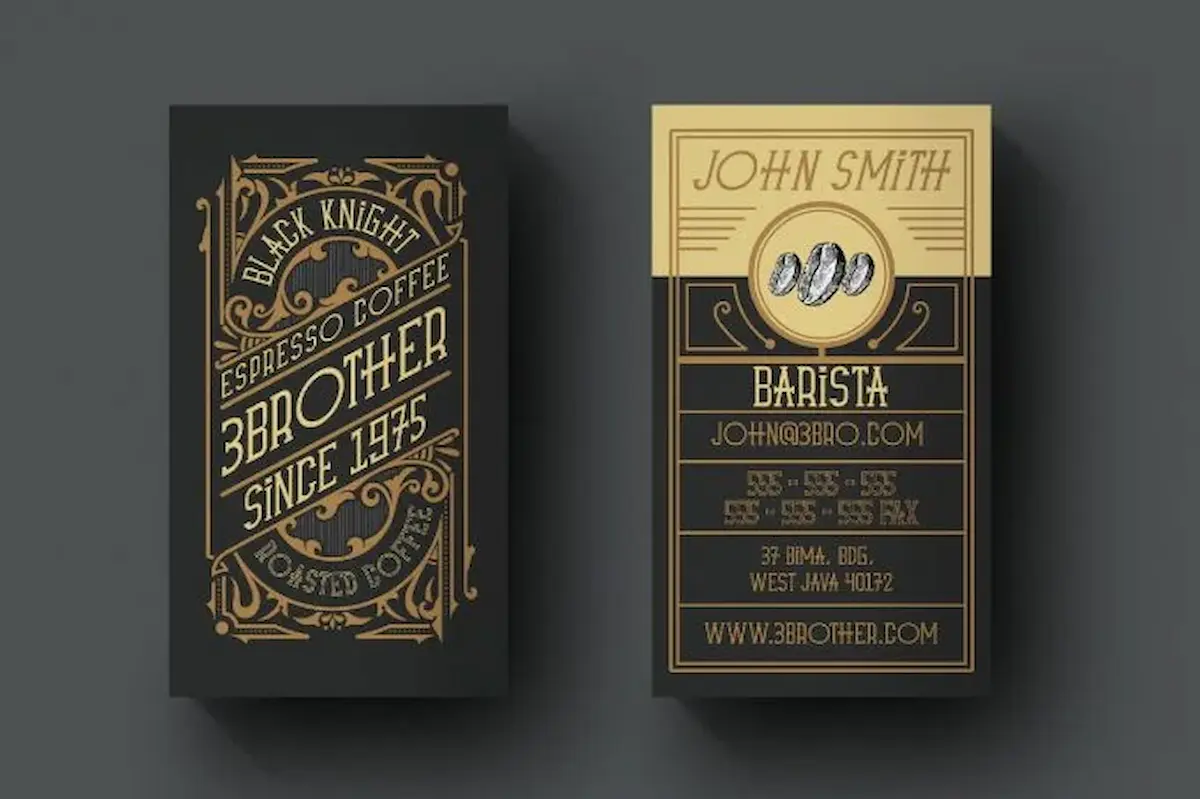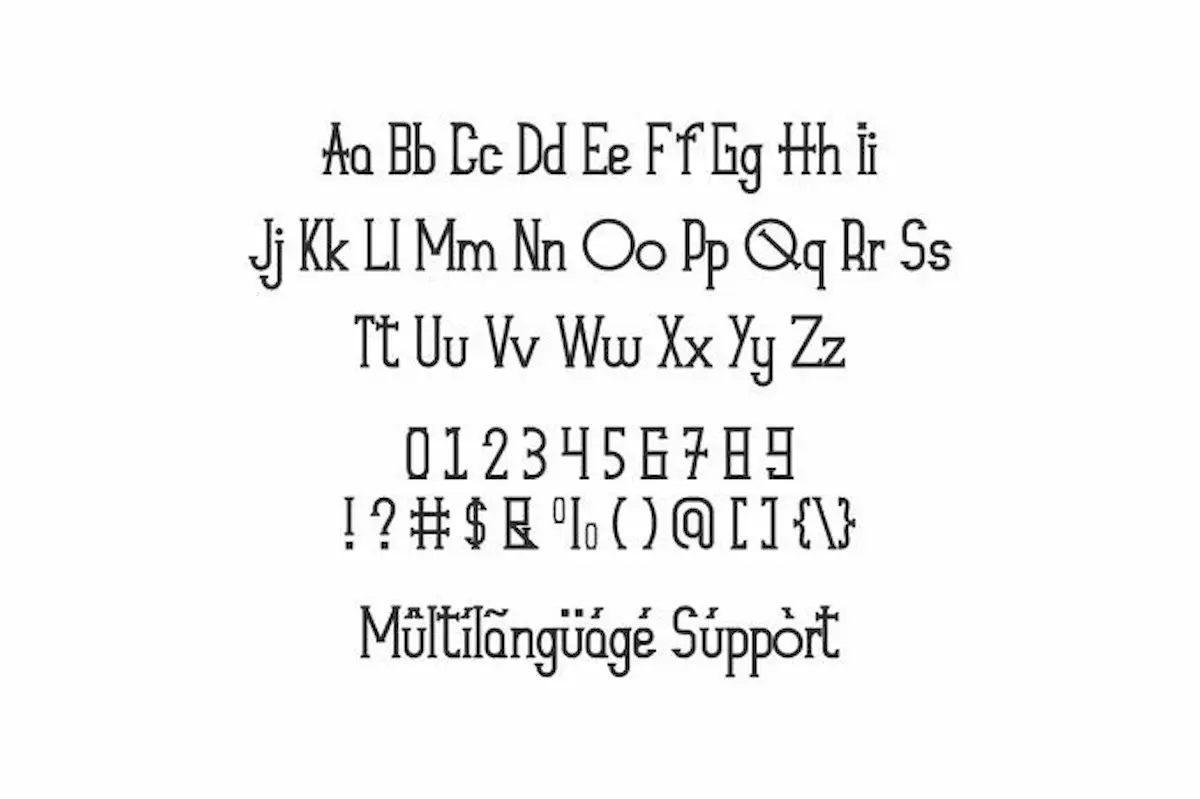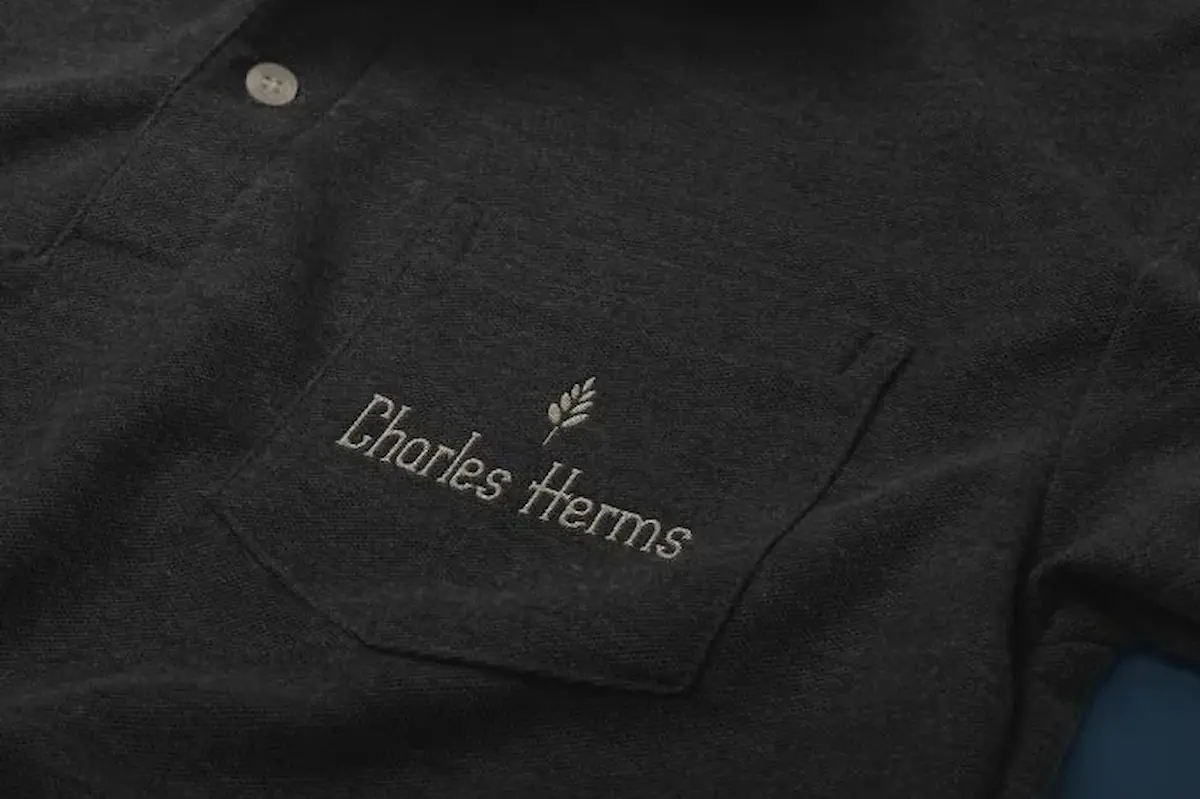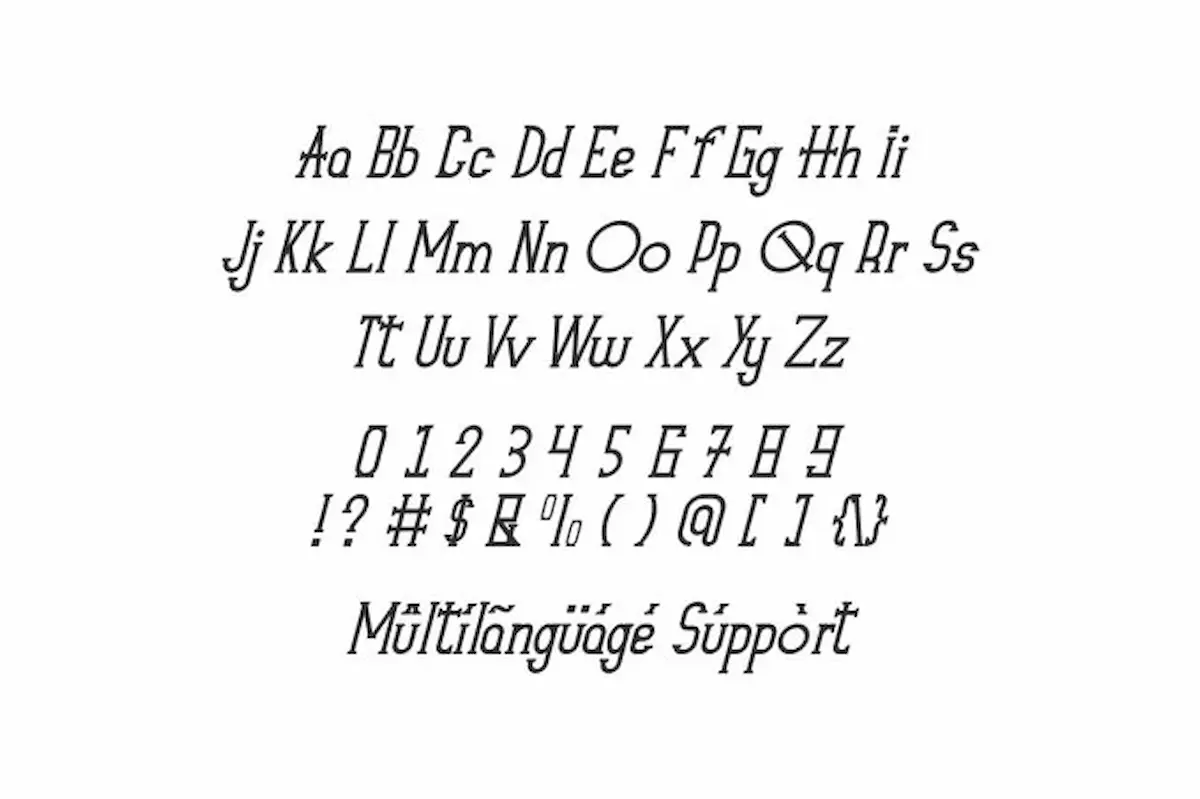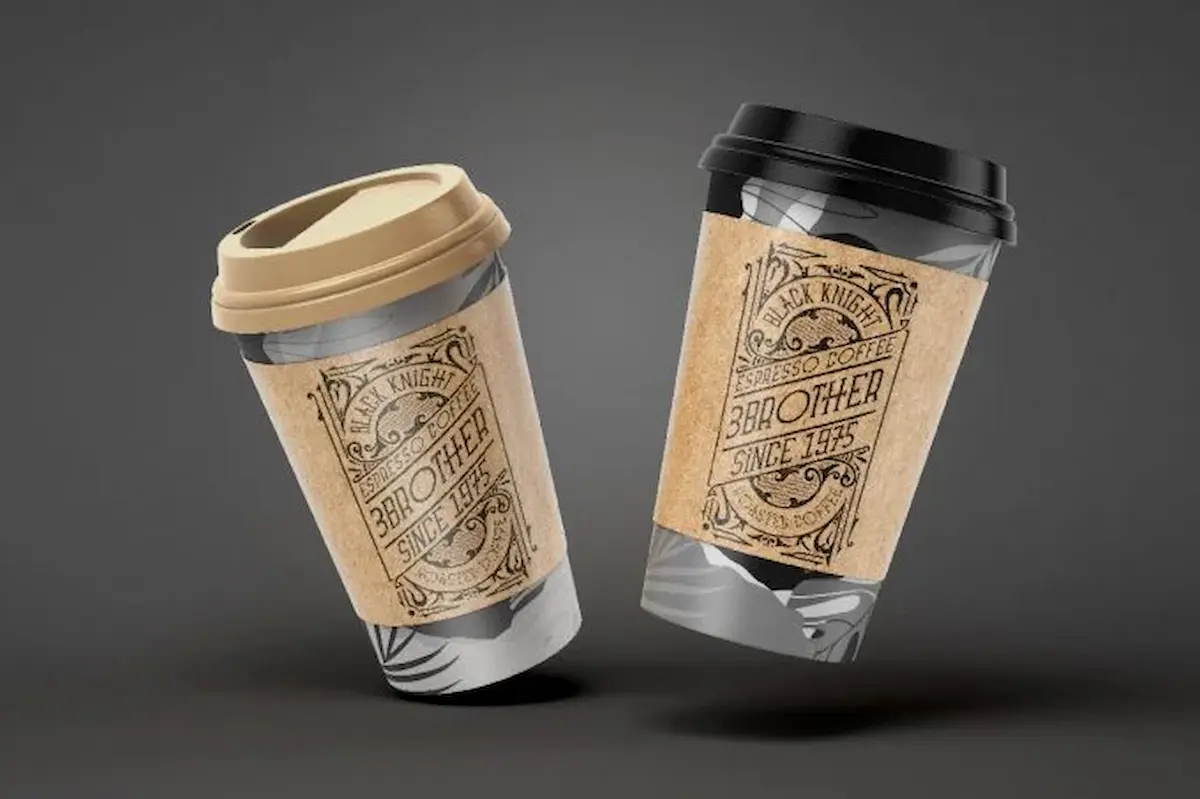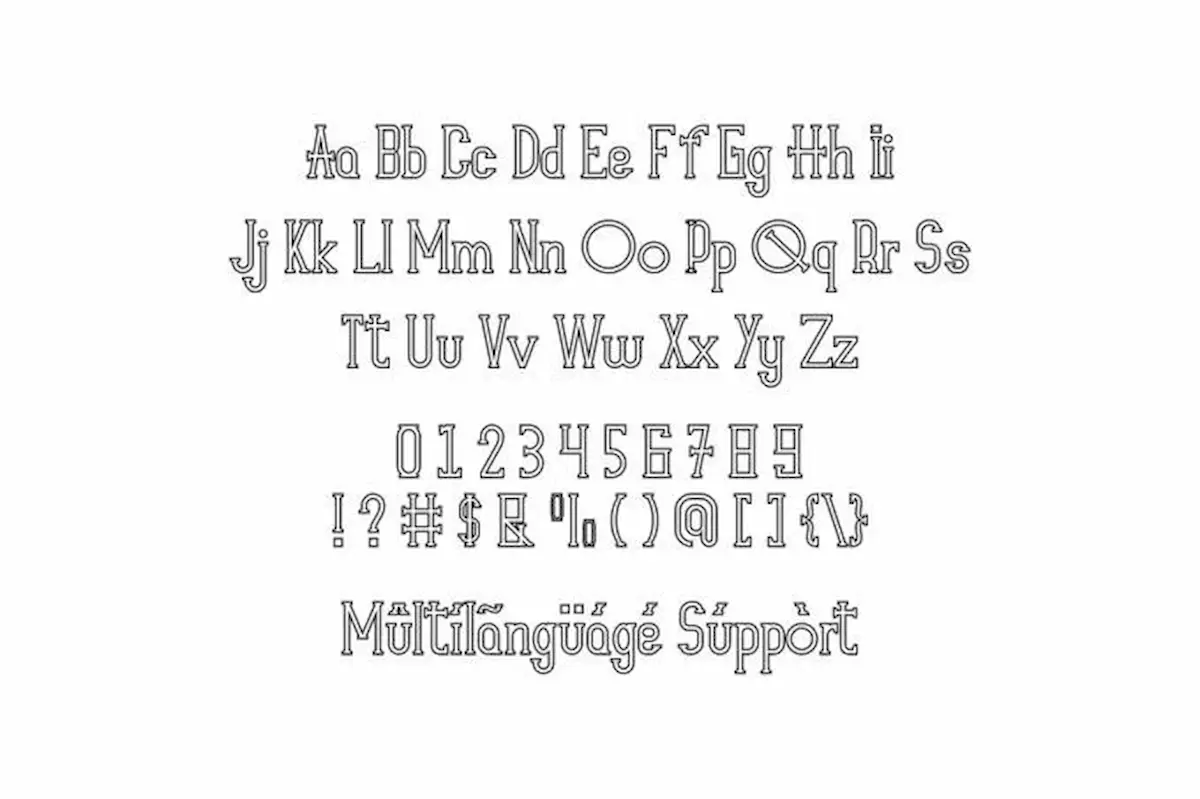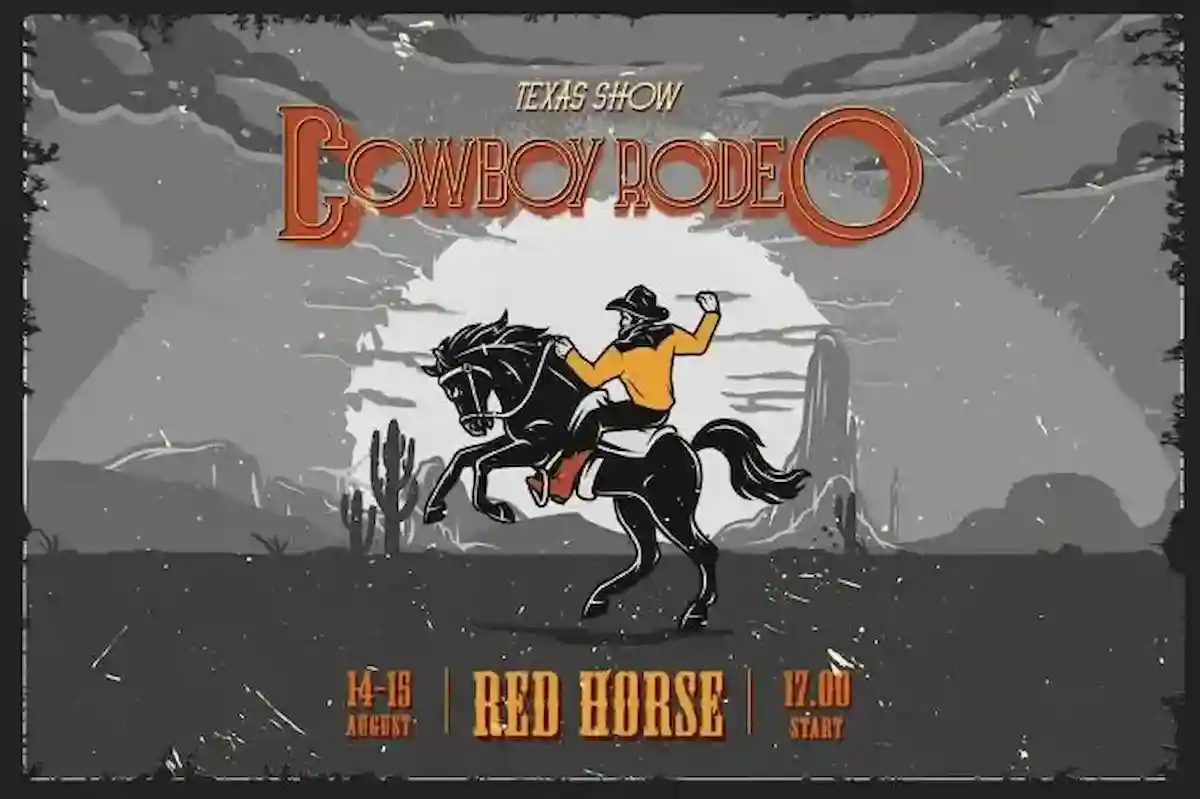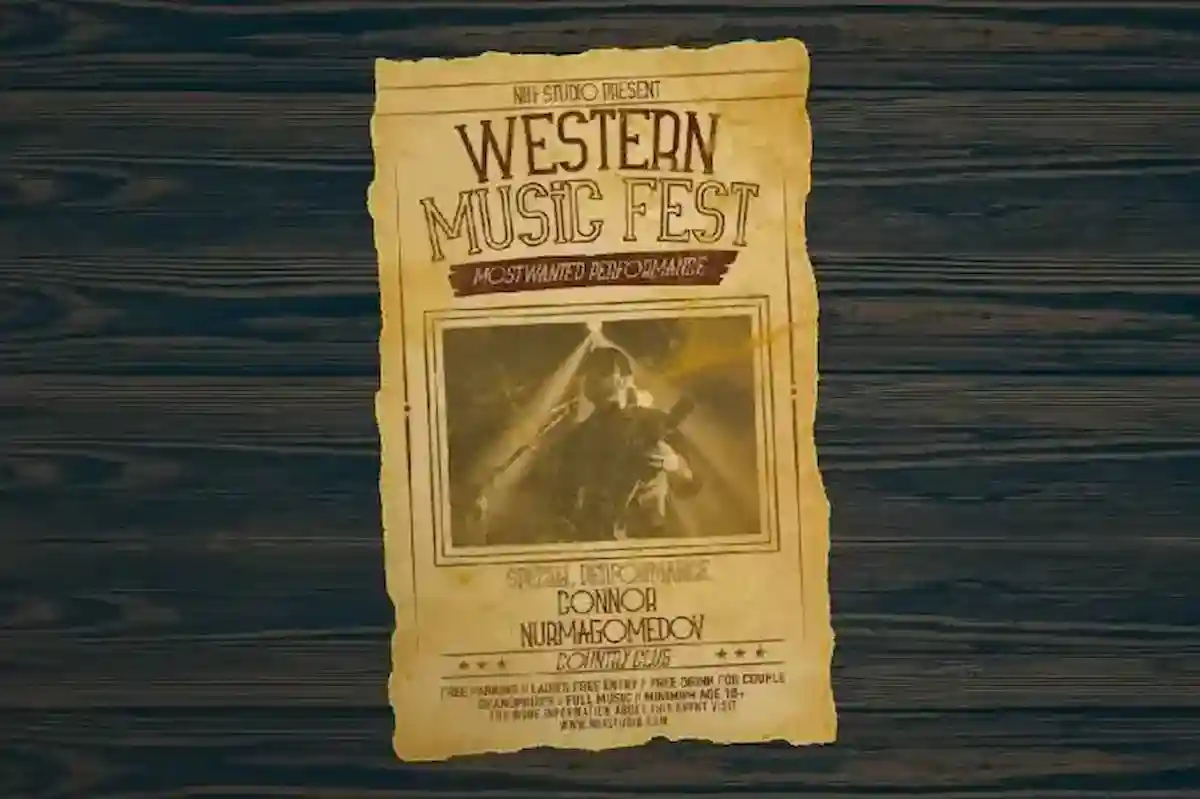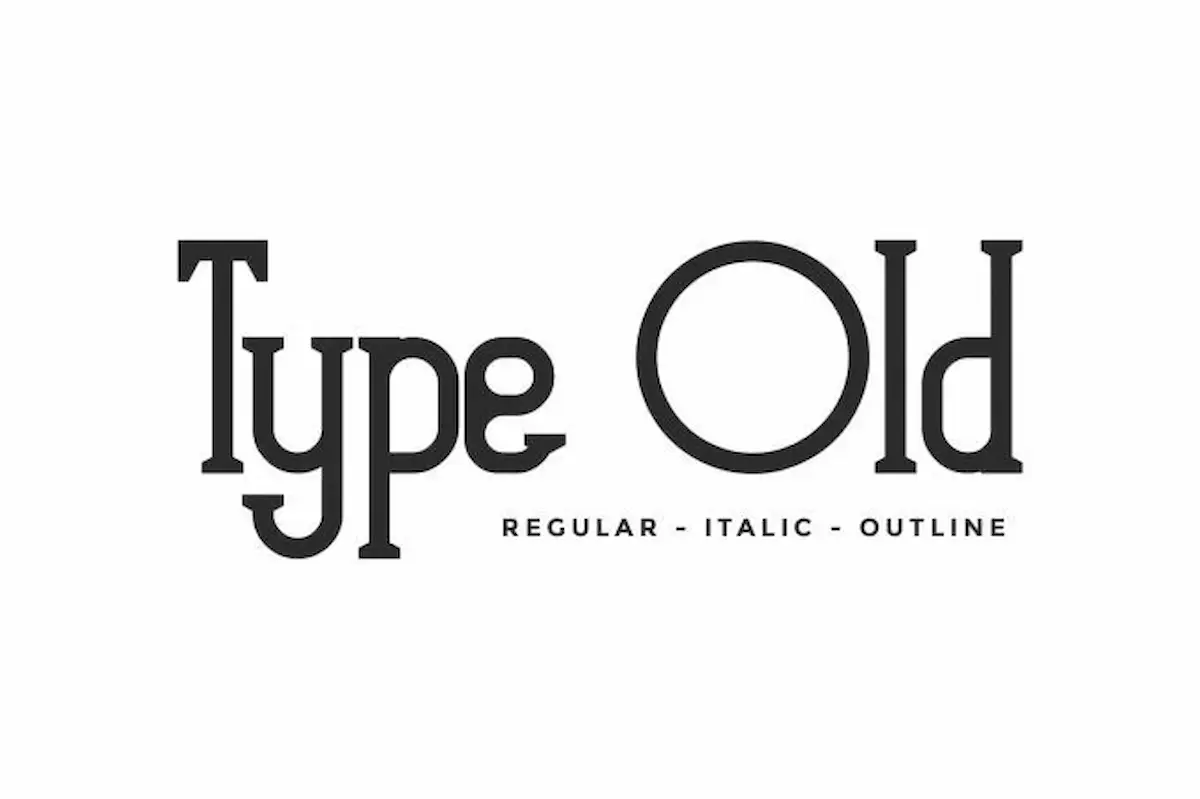
Type Old Vintage Font
Type Old Font is a vintage sans serif display font by NihStudio, made in 2020. It will great for cafe, restaurant, motorclub, or other classic industry.
Type Old Font is a uniquely handcrafted vintage-style sans serif display font family, originally created by NihStudio. Designed with precision and passion in our creative studio in Indonesia, this font offers an authentic retro aesthetic perfect for elevating your design projects.
Type Old Font is ideal for a wide range of design applications including branding, logos, product packaging, business cards, flyers, posters, labels, signage, brochures, and more. Whether you’re working on vintage-themed designs or modern layouts needing a classic touch, this font family delivers versatility and charm.
Each letter is beautifully crafted with consistent spacing and refined kerning, resulting in an elegant and balanced appearance across every project. Its retro personality and strong legibility make it suitable for both display and text use.
Bring timeless character to your work with Type Old Font — where vintage elegance meets modern usability.